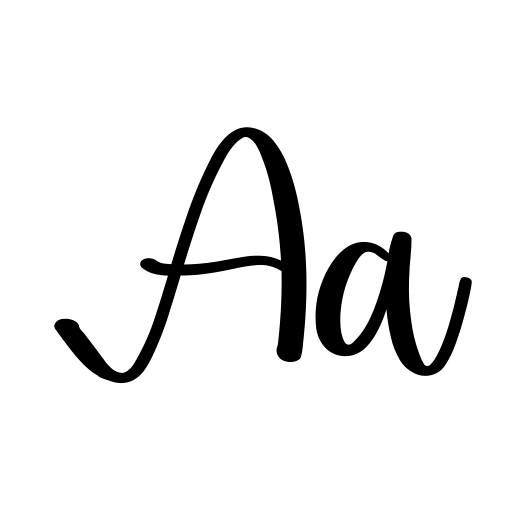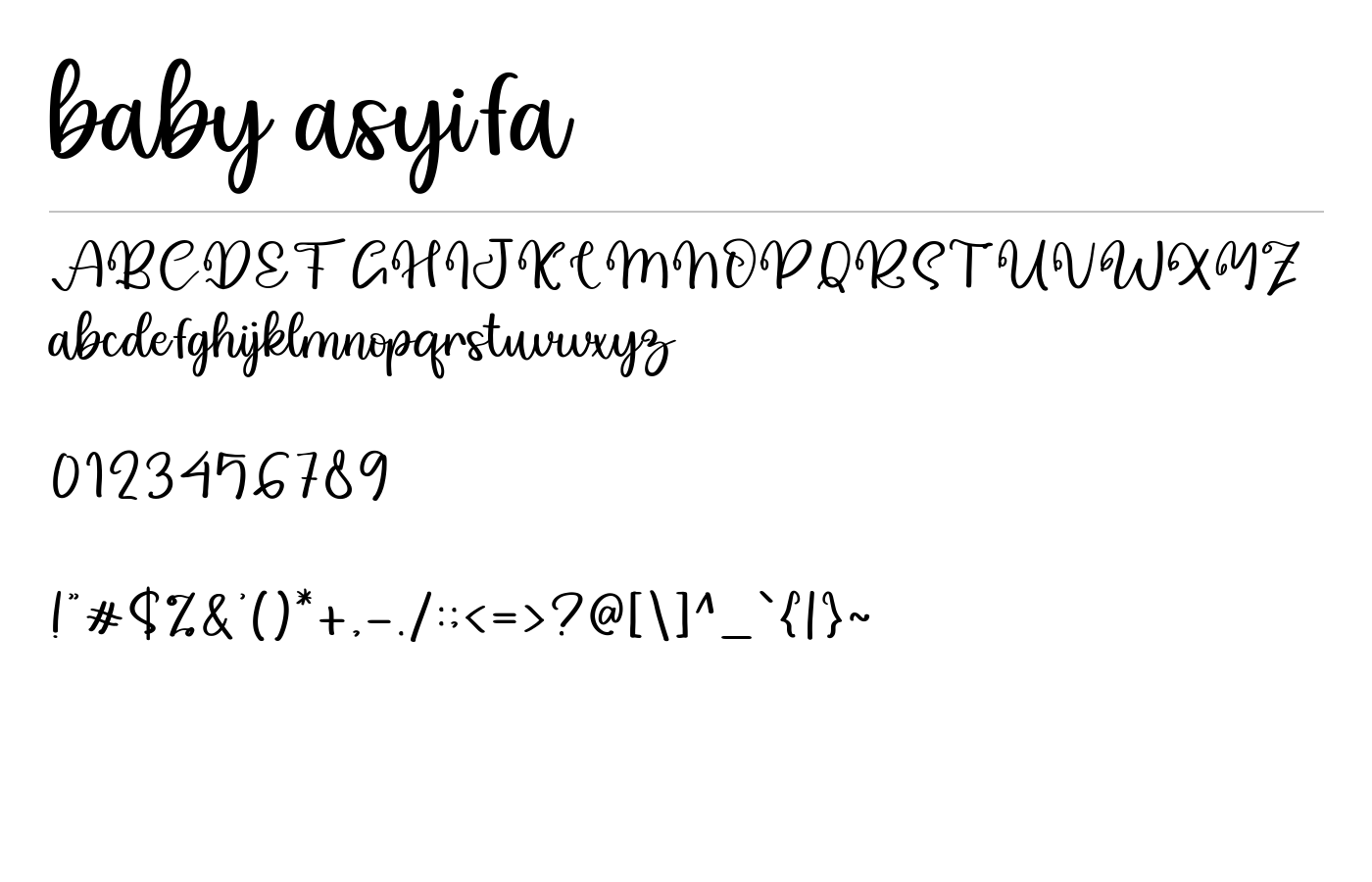
Baby Asyifa is a whimsical script font featuring playful, handcrafted letterforms with a casual, flowing style. Its moderate weight and lively curves give it a friendly, charming feel, making it ideal for creative branding, invitations, and any design needing a personal, approachable touch. This font works best in display uses where its unique character and decorative flair can shine.
| Font family | baby asyifa Font |